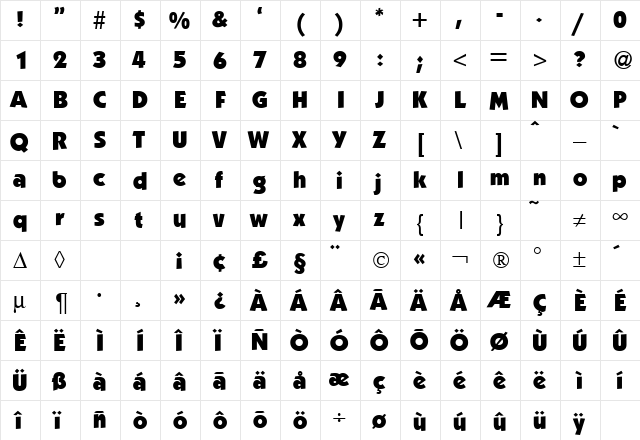
KochModernUltra Regular Font Preview
KochModernUltra Regular
Design Context for KochModernUltra Typeface
KochModernUltra offers clean, dependable letterforms without strong stylistic allegiance, making it a practical choice for designers who need flexibility.